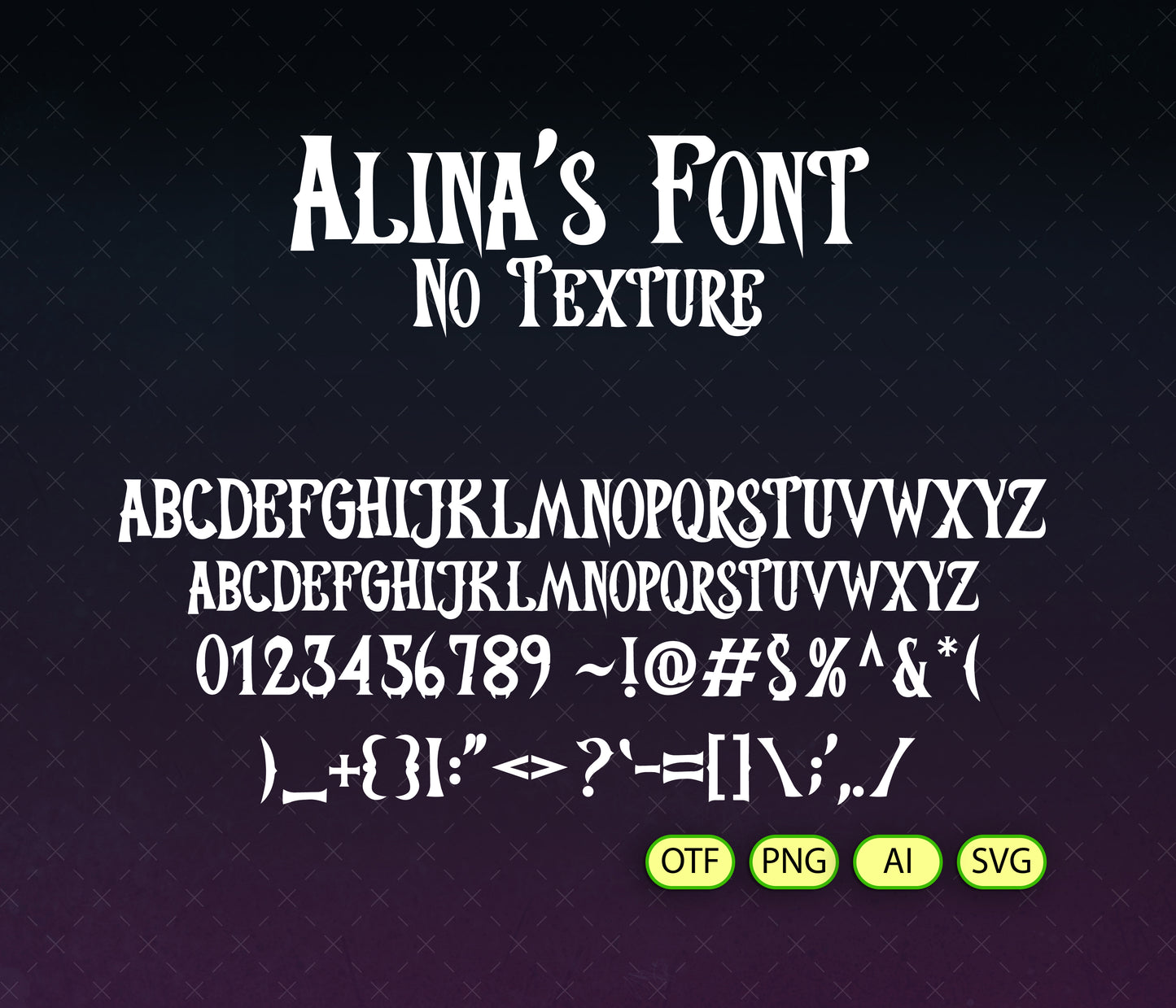
Monster Manor Spooky Comedy Font
Monster Manor Spooky Comedy Style
Step into the hilarious world of supernatural hospitality and monster friendship with our Monster Manor font, capturing the essence of comedic scares and creature camaraderie. Perfect for Halloween party planners, comedy horror creators, monster-themed designers, and creative professionals, this font brings the playful, spooky spirit of monster hospitality adventures to your projects. Create frightfully fun invitations, monster-themed merchandise, or digital content with the comedic, creature-filled energy of supernatural inn tales.
Our Monster Manor font features whimsical, gothic strokes and creature-inspired characters reflecting the beautifully spooky yet humorous aesthetic of monster hospitality scenarios. Ideal for:
- Halloween Events: Create attention-grabbing invites, posters, and banners for monster parties, spooky comedy experiences, and creature gatherings
- Comedy Horror Design: Perfect for book covers, monster promotions, and supernatural-themed accessories that capture monster manor essence
- Digital Media: Enhance websites, blogs, and social media with playful headers and graphics that express humor and monster friendship
- Entertainment Content: Add authentic character to comedy materials, monster designs, and promotional materials for spooky fun events
- Personal Projects: Bring monster charm to scrapbooking, DIY crafts, and home decor inspired by the aesthetics of supernatural hospitality